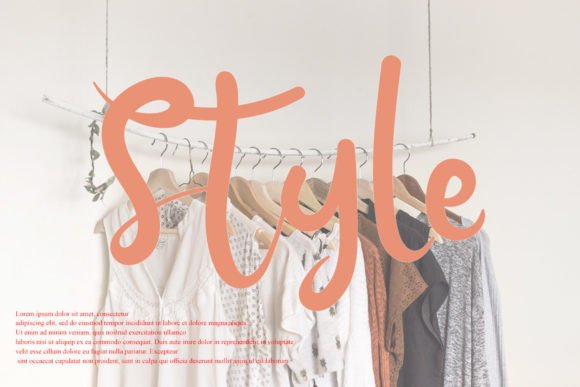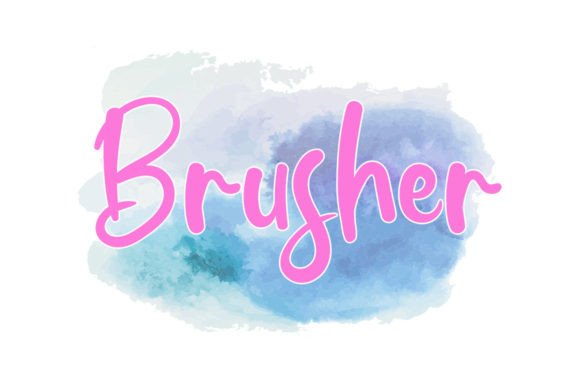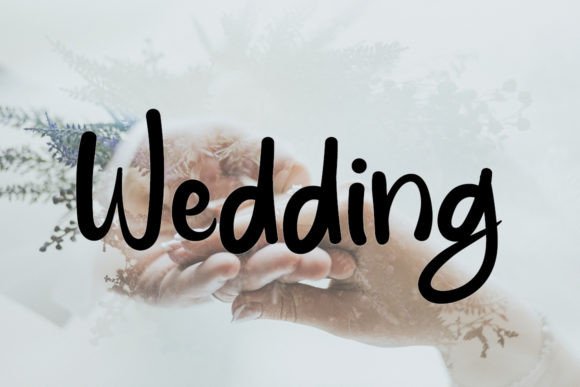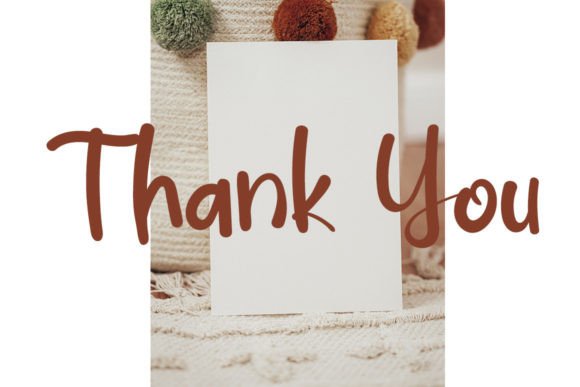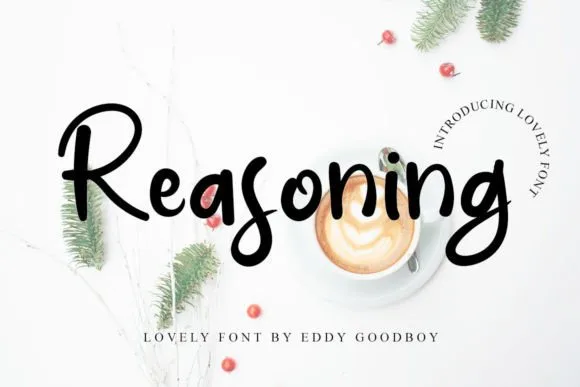
Reasoning Font
About Reasoning Font
The Reasoning font is a sweet and stylish handwritten typeface that brings a joyful personality to every design. It combines clean lines with gentle curves, offering a modern yet friendly tone. Whether you’re designing for formal business use or light-hearted personal projects, Reasoning fits perfectly with its elegant and versatile style.
Designed for Versatile Use
Reasoning is both fresh and refined, making it suitable for a wide range of design applications. Its structure is neat and consistent, which ensures high readability without sacrificing charm. The font was designed to simplify your creative process while adding personality to your visuals.
You can use the Reasoning font in:
• Business branding
• Social media content
• Personal invitations or cards
• Product packaging
• Quotes, posters, and more
Its flexible design means it works well in both minimalistic compositions and more decorative layouts.
Joyful Elegance in Every Stroke
Each character in Reasoning carries a joyful and graceful energy. The font’s balance between playful and professional makes it an ideal choice for businesses that want to express both credibility and warmth. Whether you’re working with modern websites or vintage-inspired designs, this font adapts with ease.
The smooth strokes and subtle flair in the characters bring visual harmony. This makes it easy to pair Reasoning with other fonts, especially sans-serifs, for a balanced and appealing design system.
Enhance Your Brand’s Beauty
If you’re searching for a handwritten font that combines elegance, simplicity, and joy, the Reasoning font is an excellent option. It not only improves the visual appeal of your content but also communicates a sense of approachability and care.